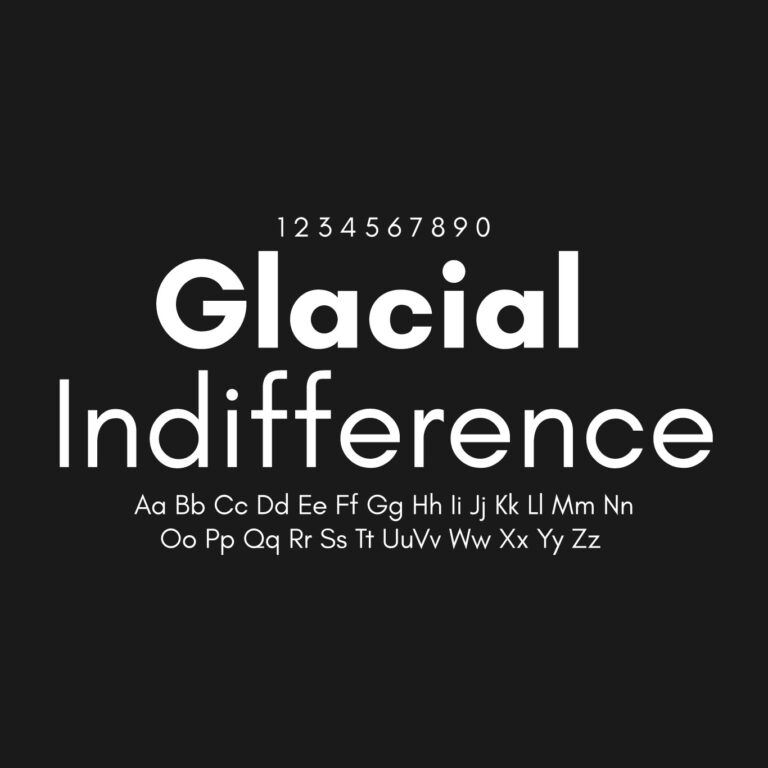
Glacial Indifference is a clean, minimal geometric sans with a distinctly Bauhaus-inspired structure. Its balanced, open letterforms work across almost anything — branding, presentations, social media templates, websites, packaging, invitations, and editorial layouts — which is exactly why it became a default choice for so many non-designers and designers alike.
The Free Futura That Took Over the Internet
Glacial Indifference was designed by Alfredo Marco Pradil and released through Hanken Design Co. in 2015 as a fully free, open-source typeface. Its geometric construction draws directly on the Bauhaus tradition, and comparisons to Futura follow it everywhere — though the two aren’t identical. Letters like the “c” and “e” end with parallel terminals, closer to Helvetica’s approach, giving Glacial Indifference a slightly more humanist, less rigidly constructed feel than Futura’s pure geometry.
That mix — Futura’s geometric elegance without Futura’s license fee — is what made it spread. It became a staple of Canva’s font menu, where millions of users reached for it in templates for everything from wedding invitations to startup pitch decks, pushing it past a million downloads across font platforms and making it one of the most quietly ubiquitous typefaces of the past decade. The SIL Open Font License means all of that use, personal and commercial alike, is fully permitted without restriction.
Design Characteristics
Glacial Indifference is built on circular, geometric forms with generous spacing and a light, airy feel even in its Bold weight. It reads as modern and neutral without tipping into cold — the parallel stroke endings and slightly humanist proportions keep it approachable where stricter geometric fonts can feel mechanical. It performs equally well in large display settings and shorter blocks of body text, which is rarer than it sounds for a geometric sans.
If you like Glacial Indifference, the obvious reference point is Futura — the commercial classic it’s most often compared to. For free alternatives with a similar geometric feel, explore Montserrat, Poppins, Raleway, Josefin Sans, Questrial, and Jost (a free Futura-inspired design on Google Fonts). Each covers slightly different ground: Montserrat is wider and more urban, Poppins rounder and friendlier, Jost the closest to Futura’s strict geometry.